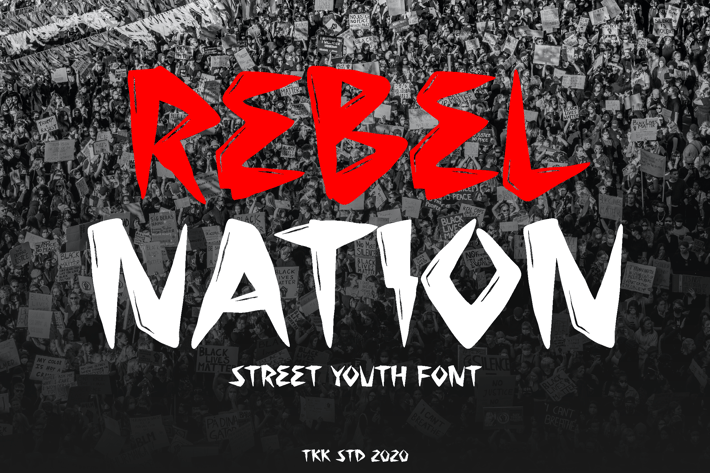
Rebel Nation - Tattoo Graffiti Font
Rebel Nation is a graffiti-inspired display typeface featuring aggressive brush strokes, jagged outlines, and a DIY energy that screams self-expression. It’s loud, bold, and raw—with visual cues pulled from tattoo culture, street graffiti, and underground zines. The font's uneven baseline and sharp edge contrast give it a handcrafted, rebellious character. Designed for those who want to break convention, Rebel Nation works perfectly across youth culture media—streetwear drops, punk album covers, skate videos, and protest branding.
From street-level rebellion to high-impact youth campaigns, Rebel Nation injects attitude into your design. It’s the perfect type choice for branding that embraces risk and expression—whether you’re making skate edits, T-shirt slogans, band merch, or anti-establishment editorial. Designed to provoke and perform, this font connects with audiences seeking raw, unapologetic, and high-contrast visuals.
✦ Key Features✦
Grit with Purpose
- Graffiti Edge: Hand-cut energy with aggressive letterforms and expressive movement
- Tattoo Culture Feel: Perfect for alt-branding, DIY poster work, or street-style campaigns
- Flexible & Eye-Catching: Ideal for YouTube thumbnails, zine covers, urban apparel, and logos
- Rebellious Identity: Makes your message feel personal, urgent, and impossible to ignore